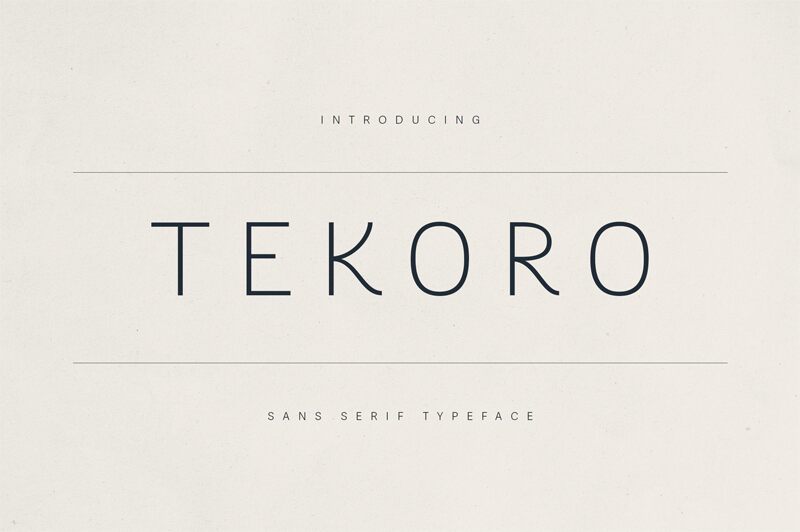
Tekoro Black font by VPcreativeshop is a contemporary sans serif that captures geometric elegance with its simple yet sophisticated style. This font embodies minimalist aesthetics through its clean design and modern sensibility. Use Tekoro in mainstream designs that need a sleek typography element that never overpowers the overall design. With this font, you have various character options and some beautiful ligatures as well.
Tekoro Black is perfect for modern and elegant branding and identity designs, outdoor advertising and poster designs, magazine and newspaper headlines and body text, website content, typographic logotype designs, print packaging, corporate business card designs, or even merchandise graphic.